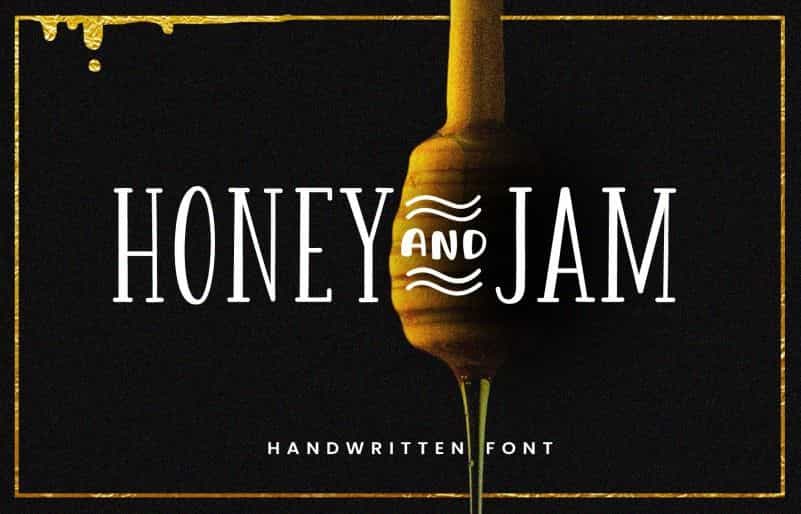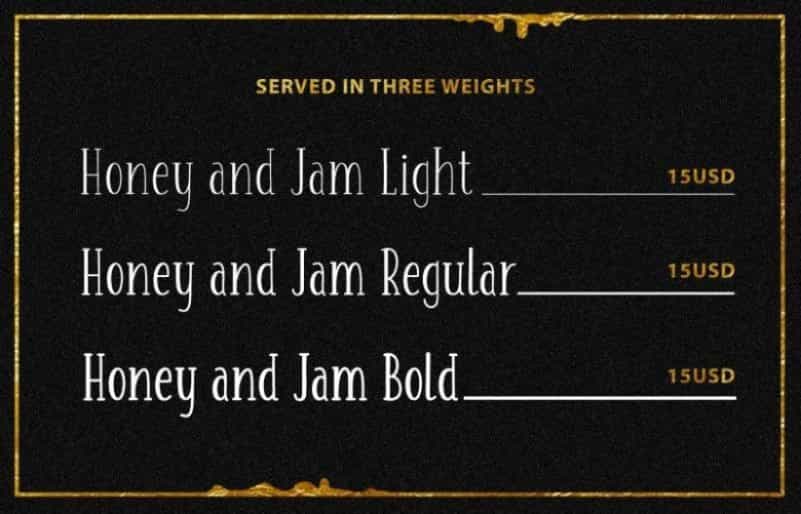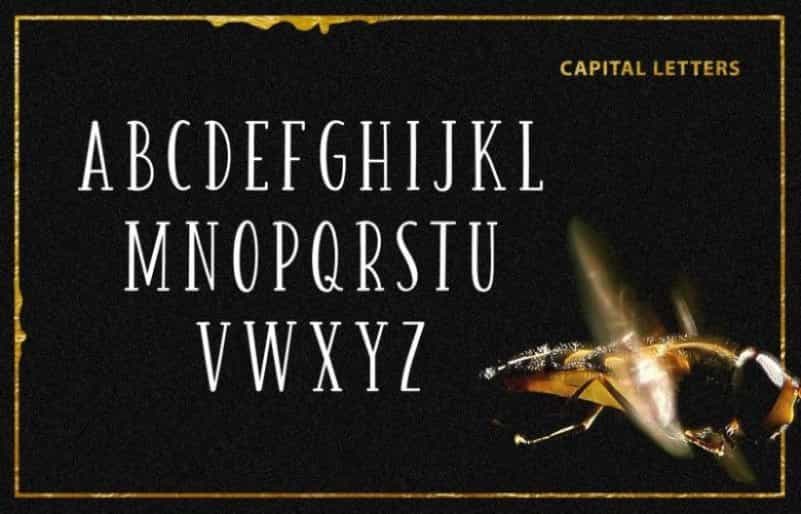
Honey & Jam Font Family
Honey and Jam is a fun handwritten serif font, which is rather simple but at the same time arty, very much fit for both print as well as web in general. It was done out of need to design a new typeface for children and teens, as well as enough friendly and versatile for text in words or even easy-to- read long texts. It is created and distributed by Shaped Fonts.